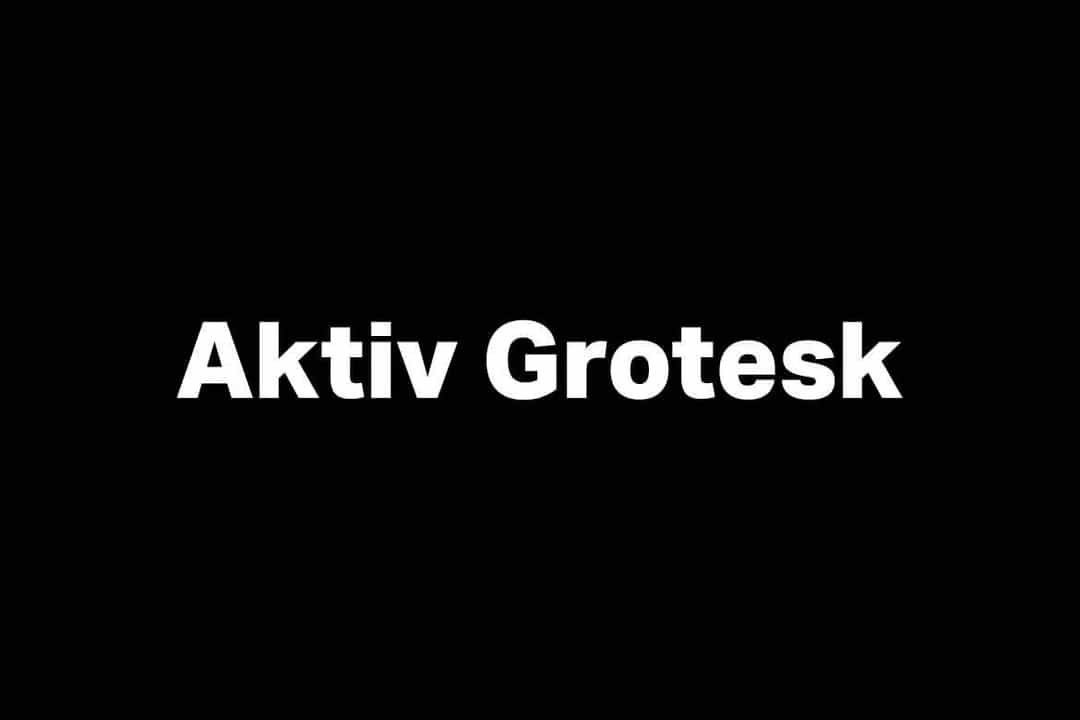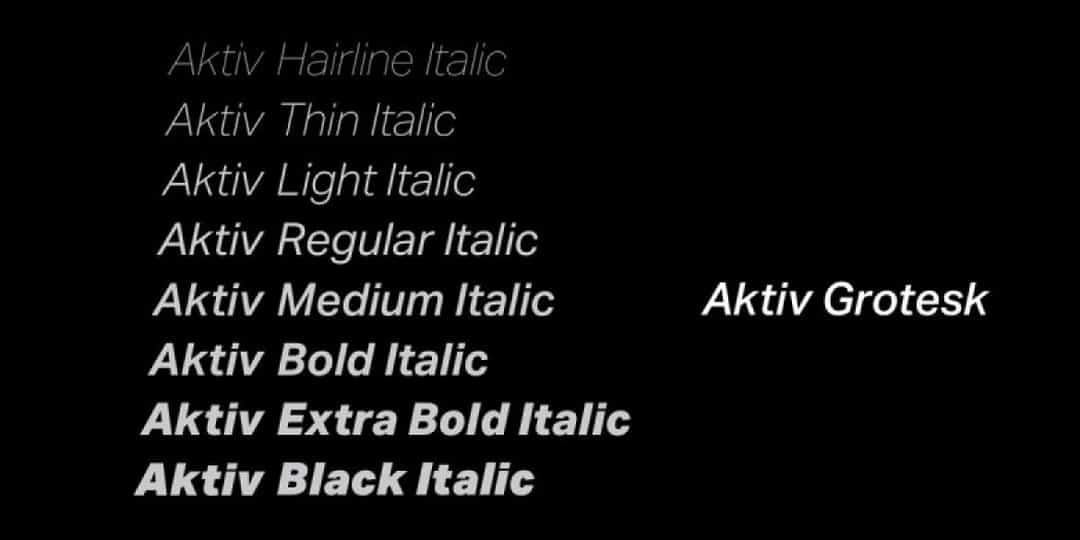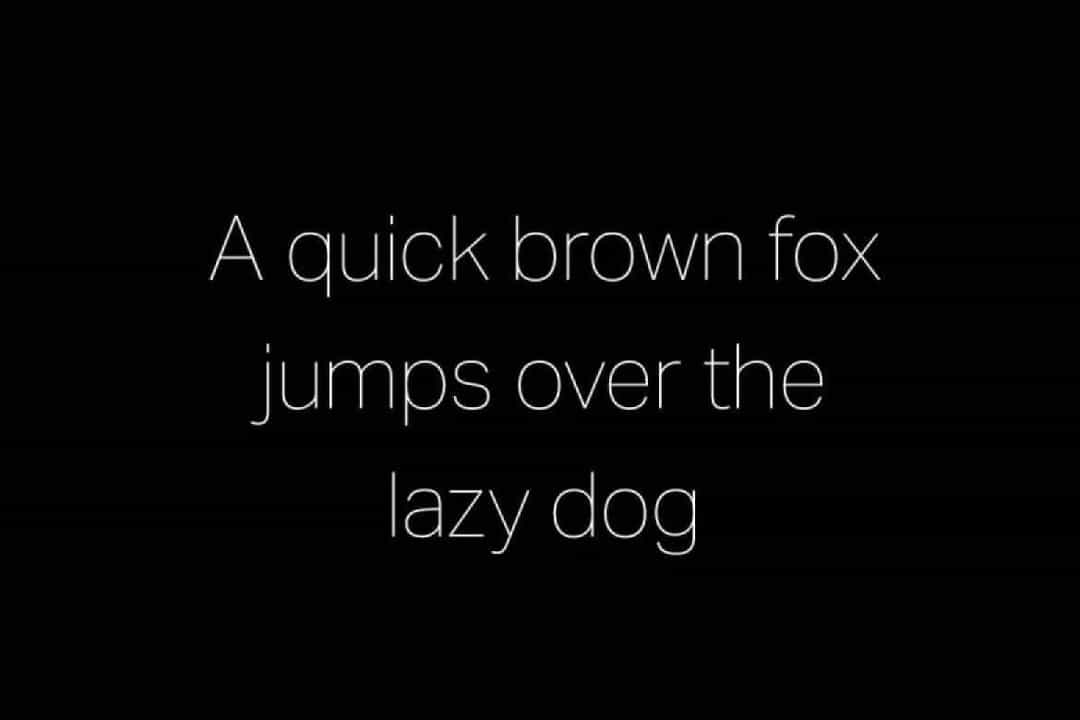
Aktiv Grotesk is an enlarged Sans Serif font designed and developed by Daltonmaag, making it the perfect option for branding tasks requiring multiple fonts or to maintain a quiet atmosphere. As opposed to font families featuring grotesque designs, Aktiv Grotesk presents itself in an inoffensive manner.